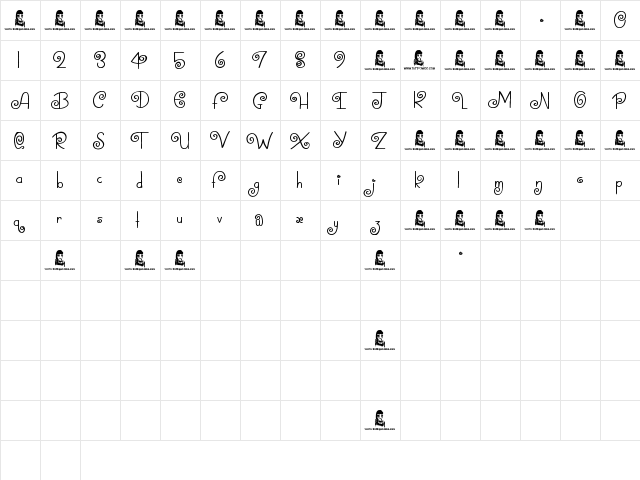
Swirly Tops Regular
Design Context for Swirly Tops Typeface
Swirly Tops is built around its visual character rather than neutral utility — its distinctive forms are designed to make an impression at display sizes.
Font Pairing: Pair with a clean neutral sans-serif for body copy to let Swirly Tops's character lead without overwhelming the composition.
Pro Tip: Use Swirly Tops exclusively at display sizes — it was designed to be seen, not read at length. Let a neutral companion handle body copy.